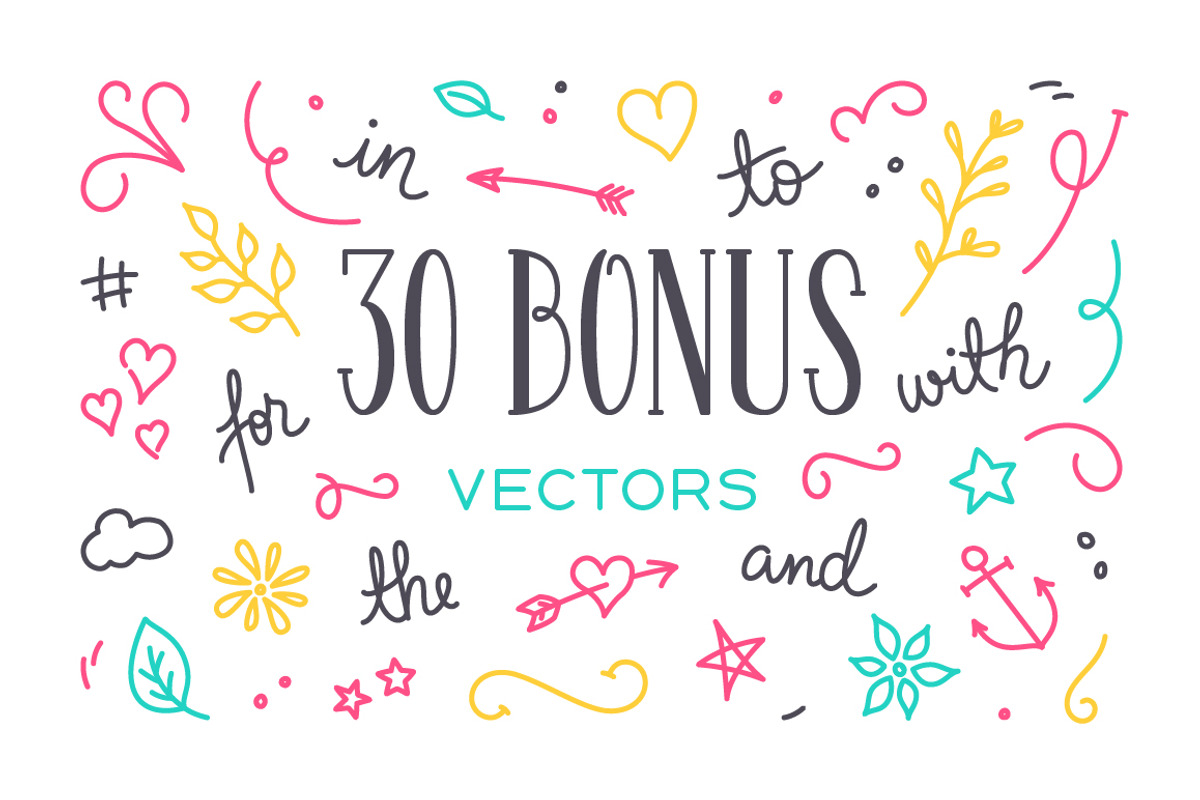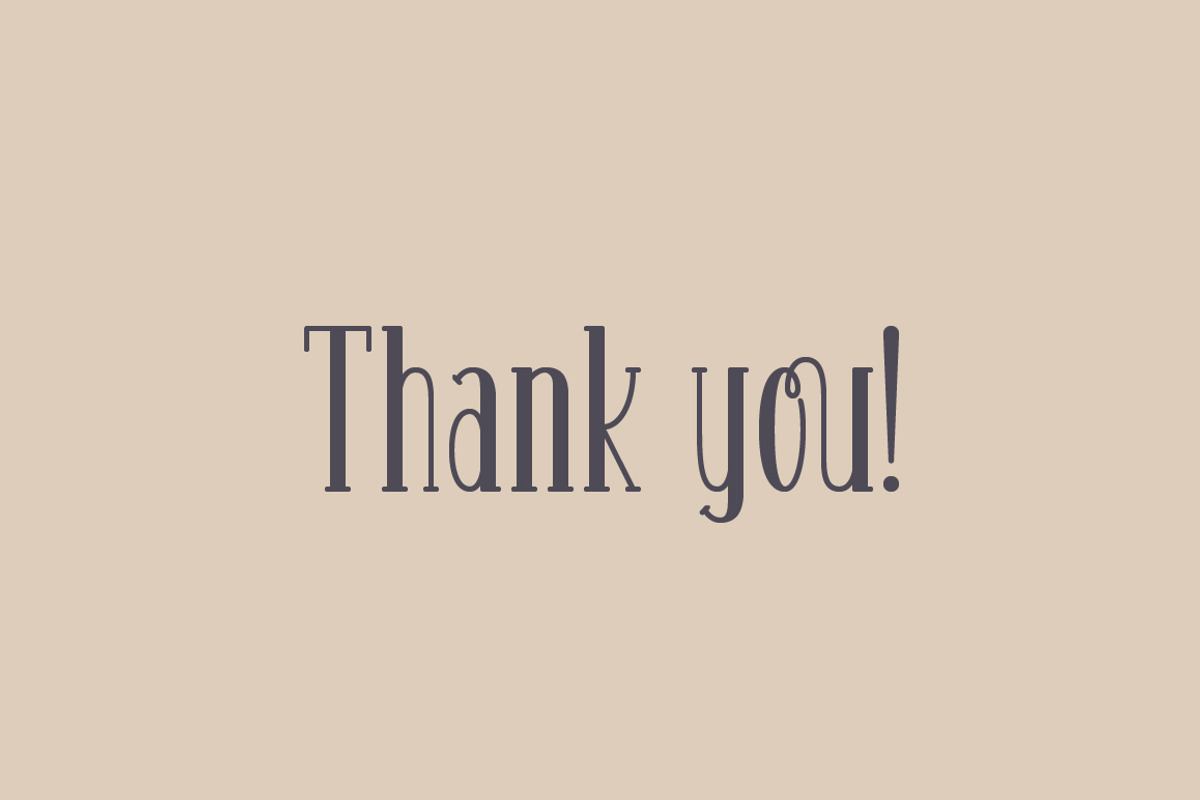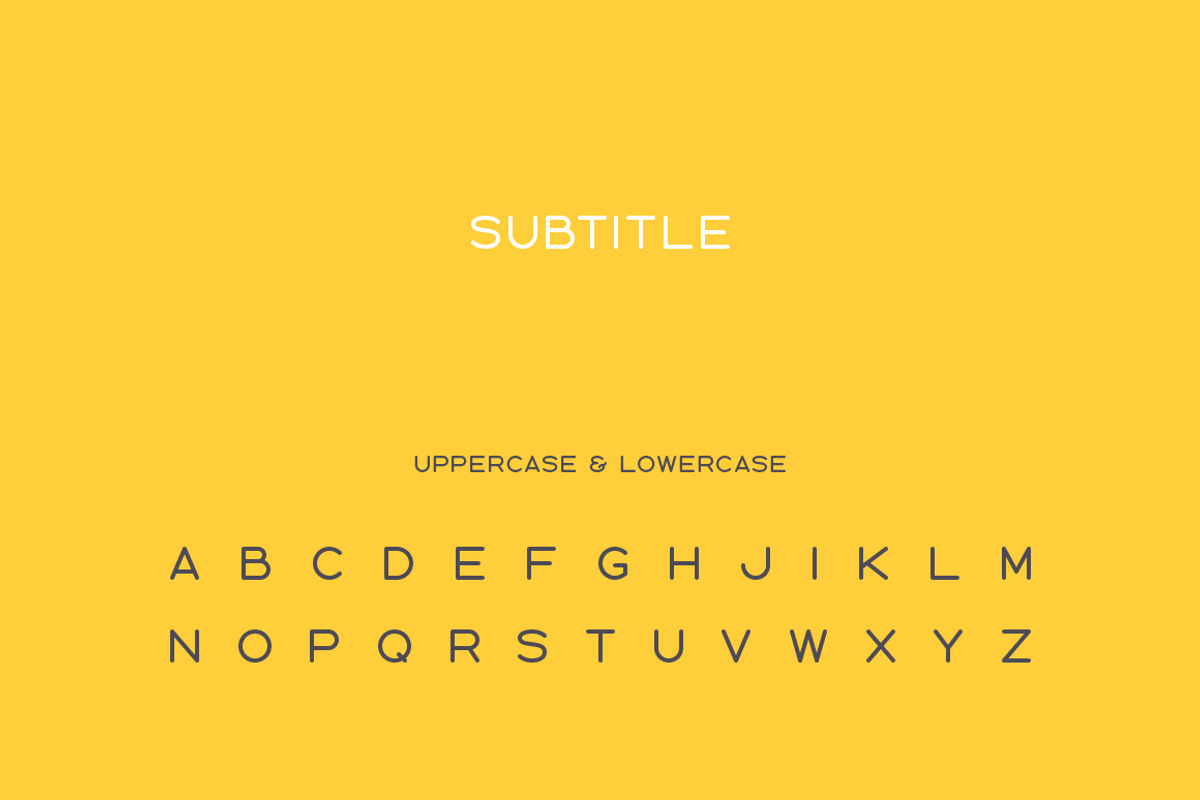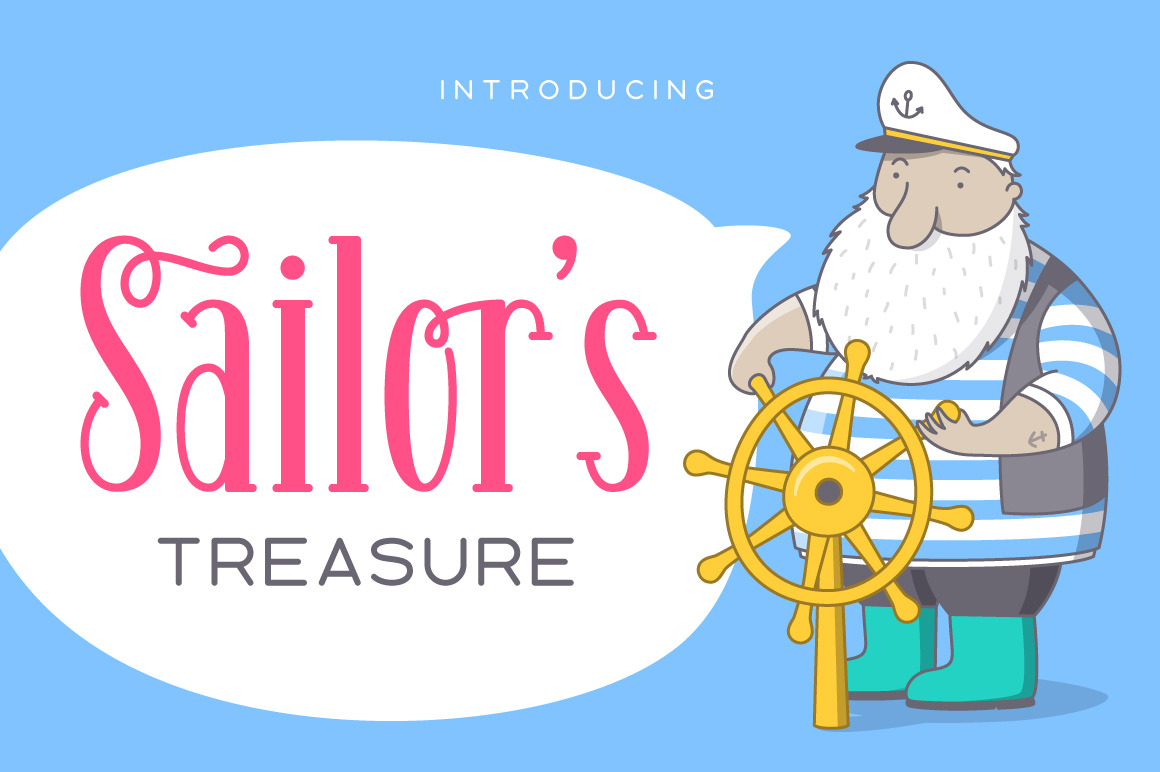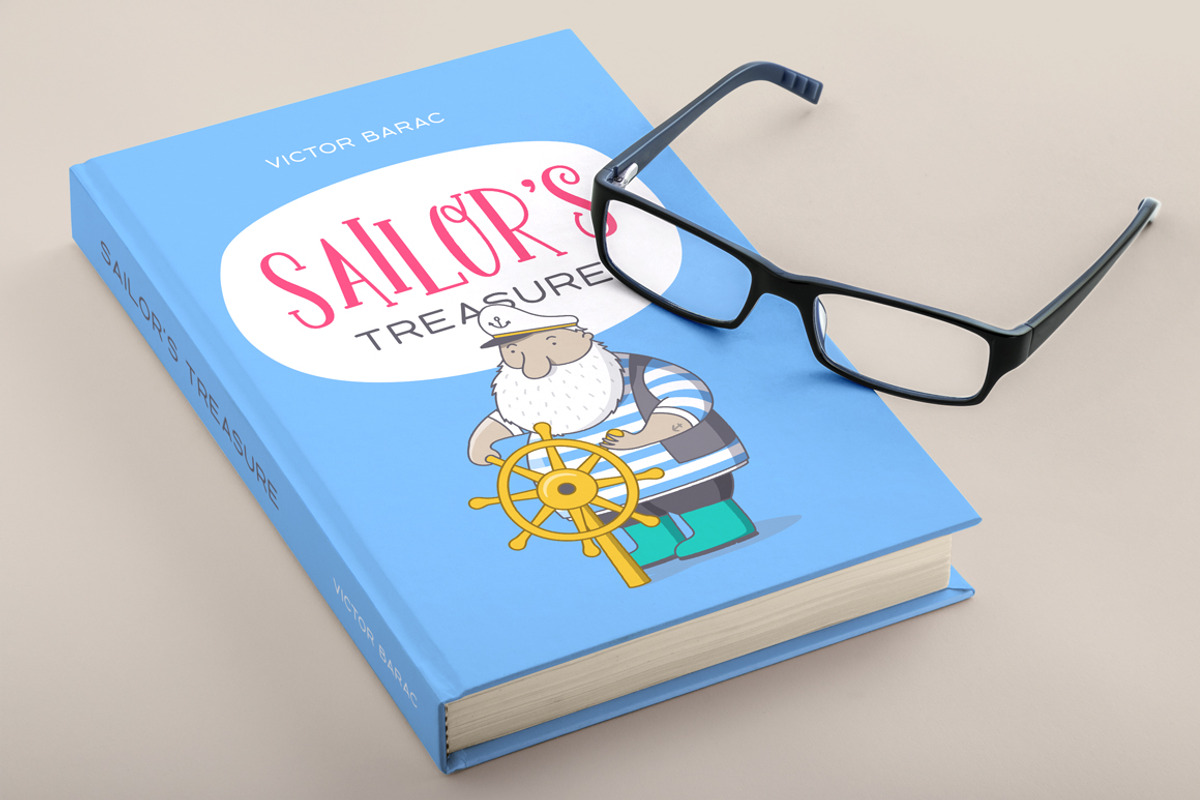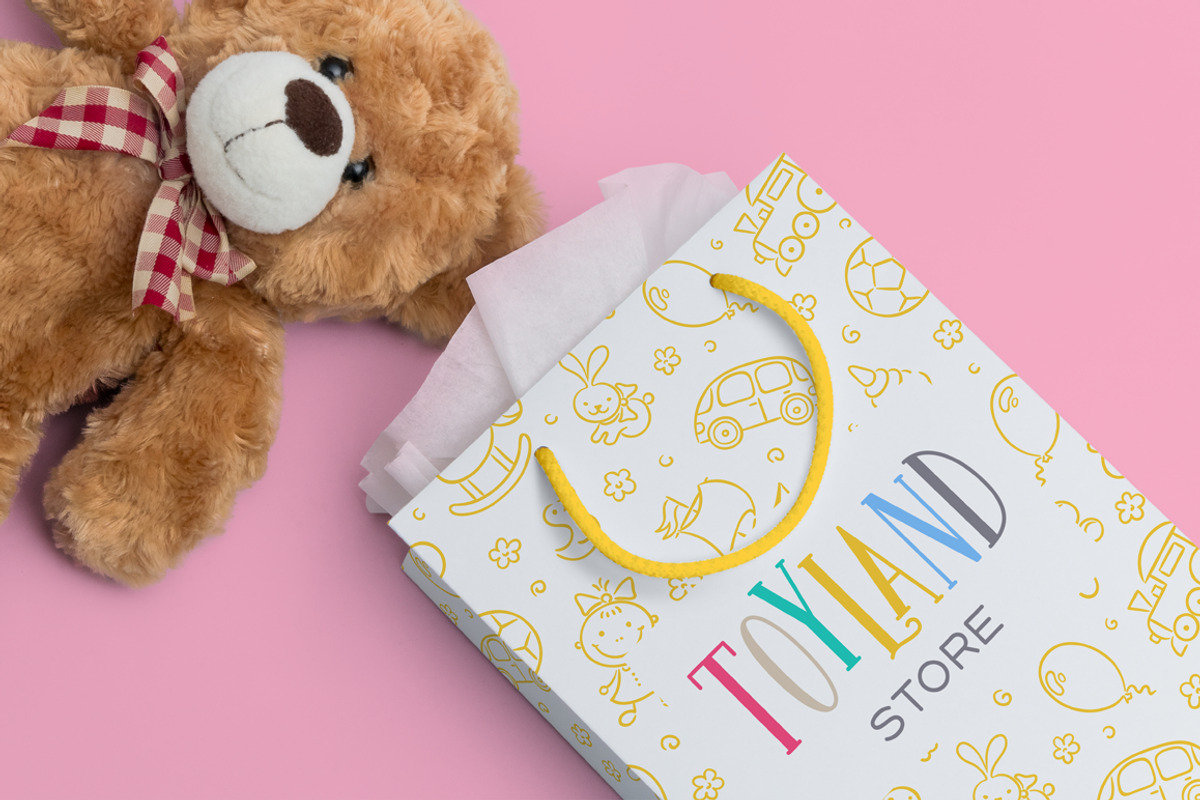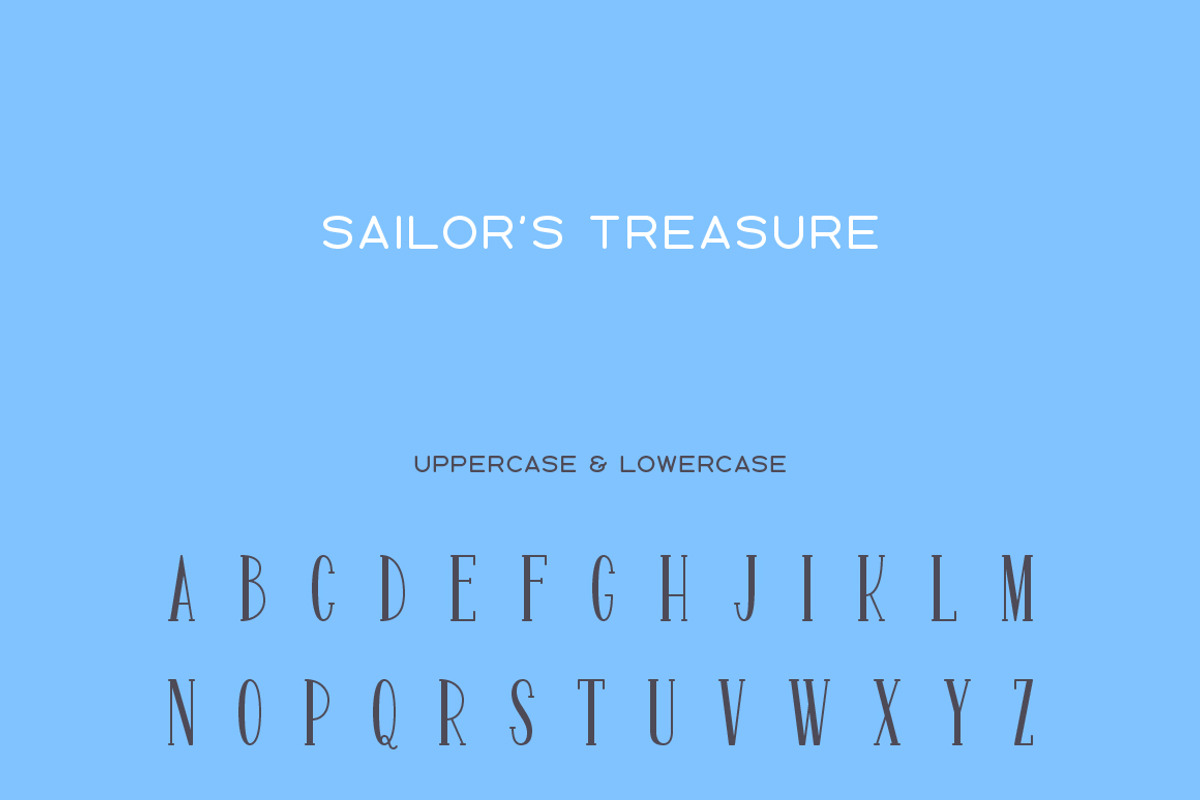
Sailor's Treasure - Font Duo
Introducing a playful hand-written font duo with lots features, symbols and alternate letters. This font is perfect for quotes, logos, apparel, advertising, wedding invitations and packaging design.
- Contextual Alternates
- Symbols & Punctuation
- Matching subtitle font
- A total of 450 Glyphs
- OpenType Features
- + 30 Bonus Vectors
Sailor's Treasure comes with a complete set of stylistic alternates for uppercase letters that offer a more playful option to the standard characters.
Contextual Alternates
Contextual alternates included in the Sailor's Treasure Font swaps the first capital letters with a more decorative alternative.
To improve the look of characters that combine in an unattractive way, Sailor's Treasure provides a wide variate of Discretionary and Standard Ligatures.
International Characters (Multilingual)
Sailor's Treasure supports most Latin Script languages such as English, Spanish, French, German, Portuguese, Italian, Norwegian, Swedish, Irish, Turkish, etc.
Subtitle Font
The Subtitle font was created with the same line characteristics to match the main font and can be used into your design for body texts, slogans or any other secondary information.
30 Bonus Vectors